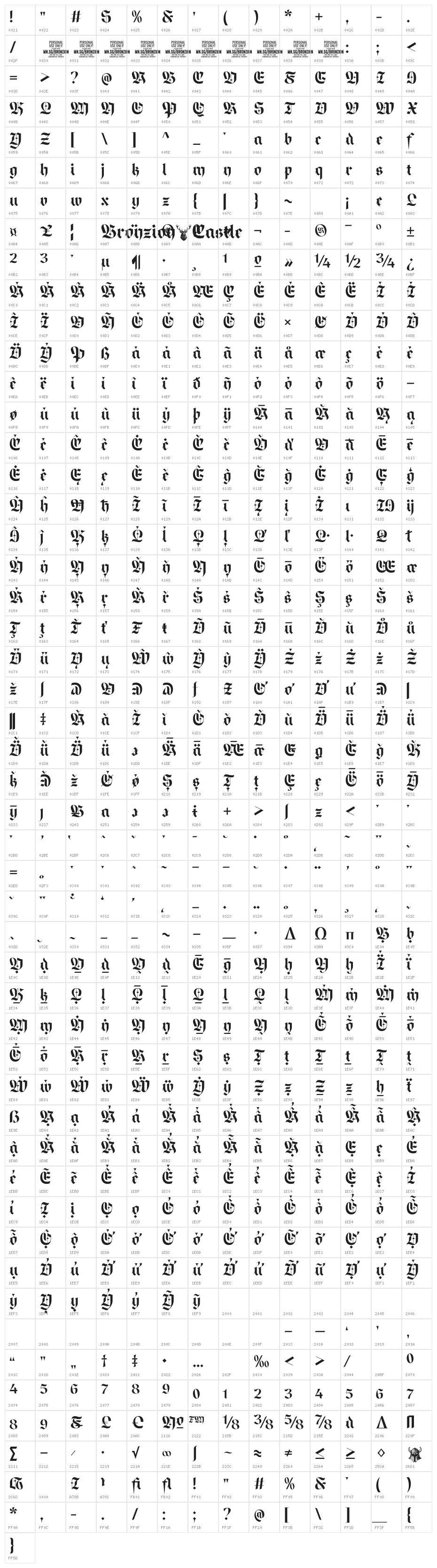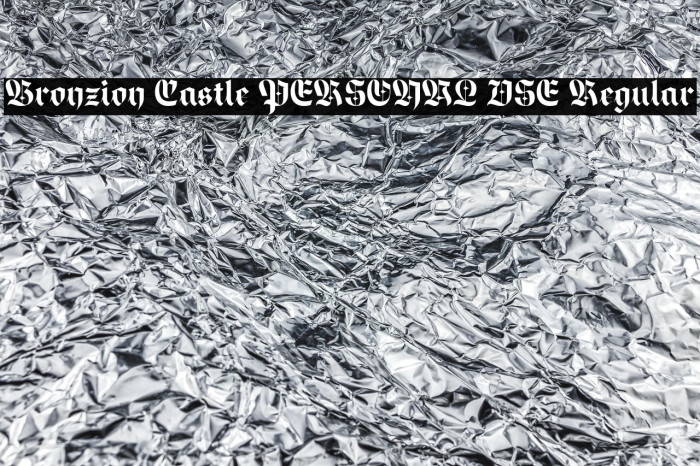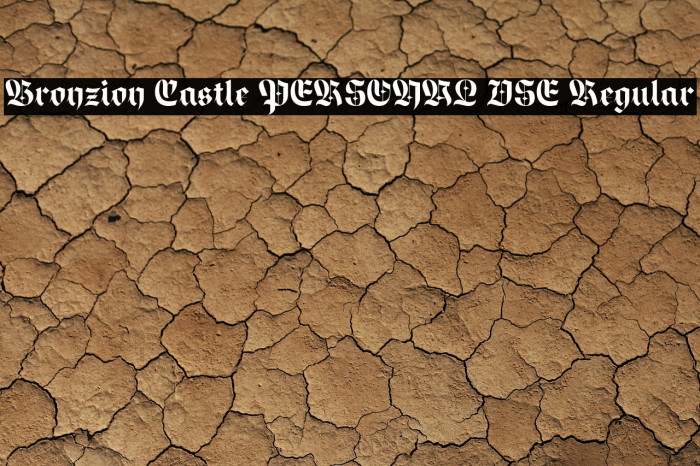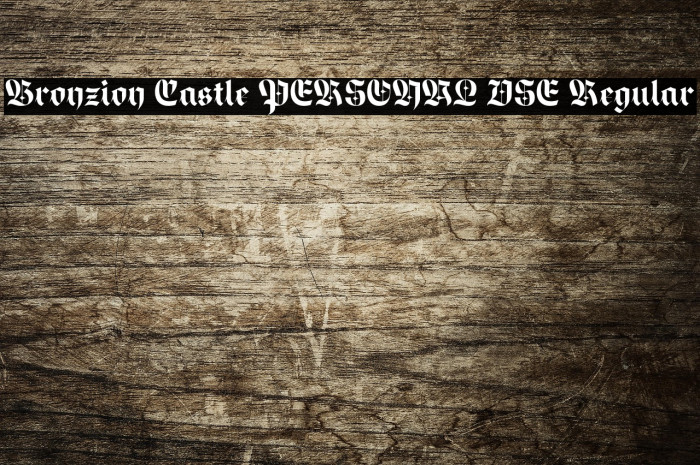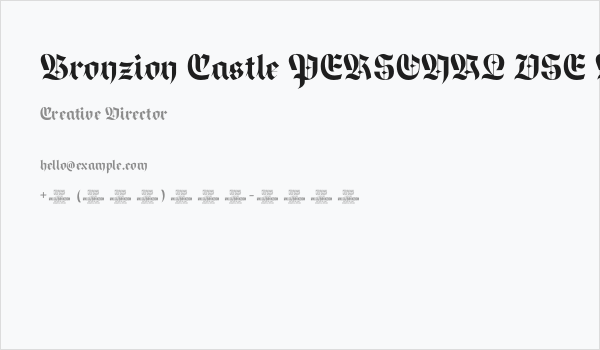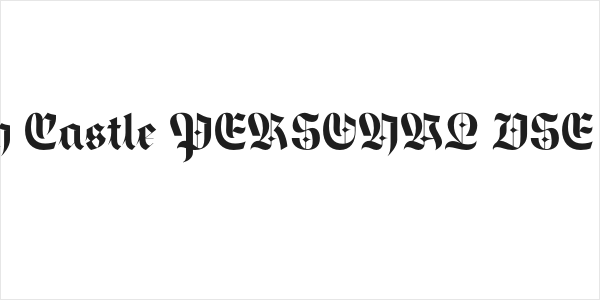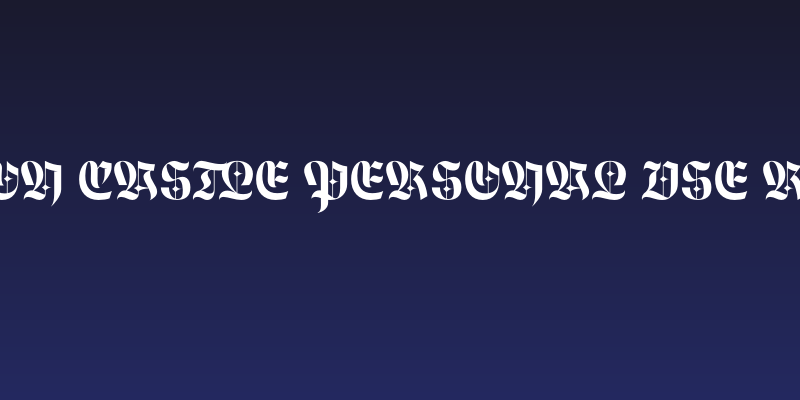
Bronzion Castle PERSONAL USE Regular Font
Bronzion Castle PERSONAL USE Regular Description
This font features a bold and dramatic blackletter style, reminiscent of medieval script. The characters are sharply angled with intricate detailing, giving a sense of historical elegance and authority. The uppercase letters are particularly ornate, with sweeping curves and pointed edges, while the lowercase letters maintain a consistent style with slightly less embellishment. The numerals and special characters are designed to match the overall aesthetic, ensuring a cohesive look across all text. This font is ideal for projects that require a touch of classic sophistication and a strong visual impact.
| Proposed Projects | Suitable for historical-themed designs, event posters, book covers, and branding that requires a classic, authoritative look. |